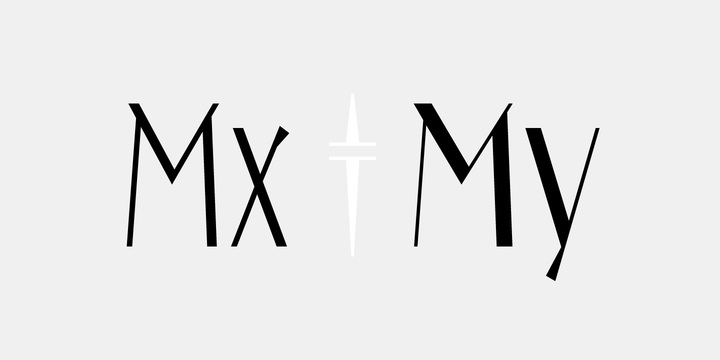
MxMy
by Gaslight
Clean, inspired by russian constructivism, duo of fonts - Mx and My. My has more contrast and has swashes. All have numerous alternatives and ligatures. All have a small triangle in place of drop. Good for fashion, editorial, posters and so on.